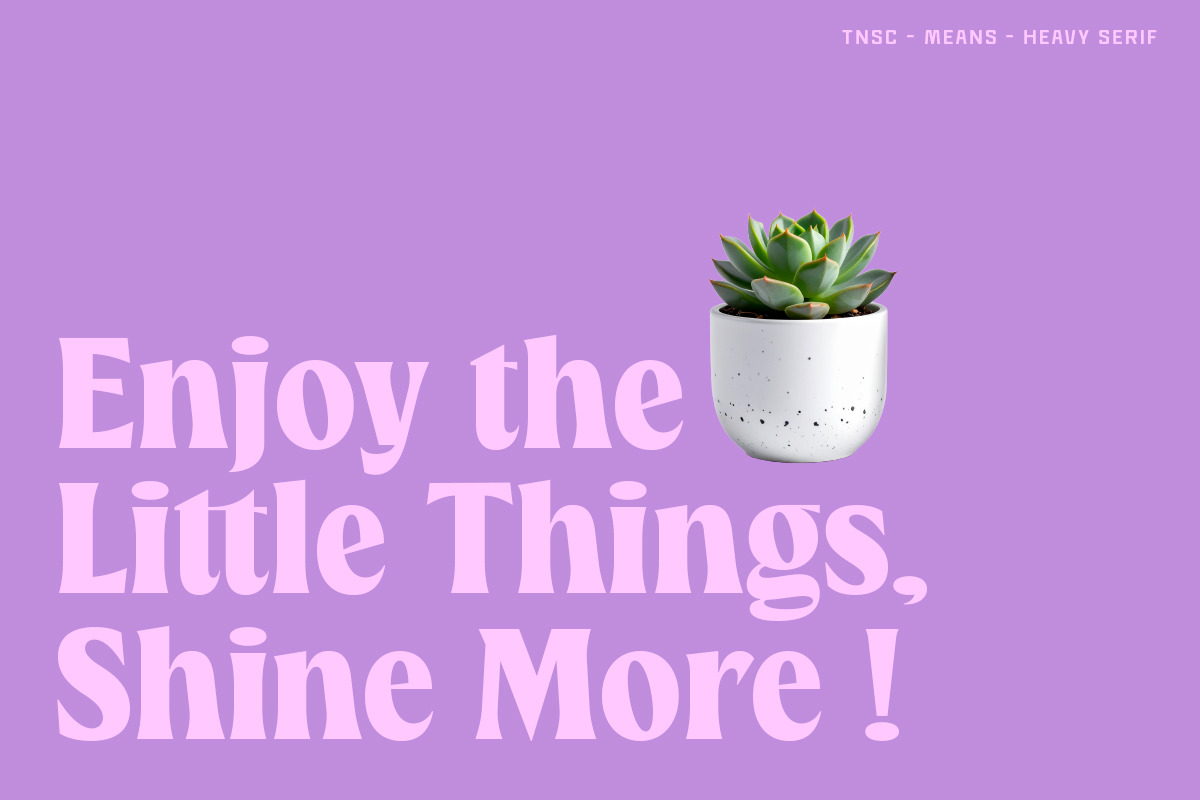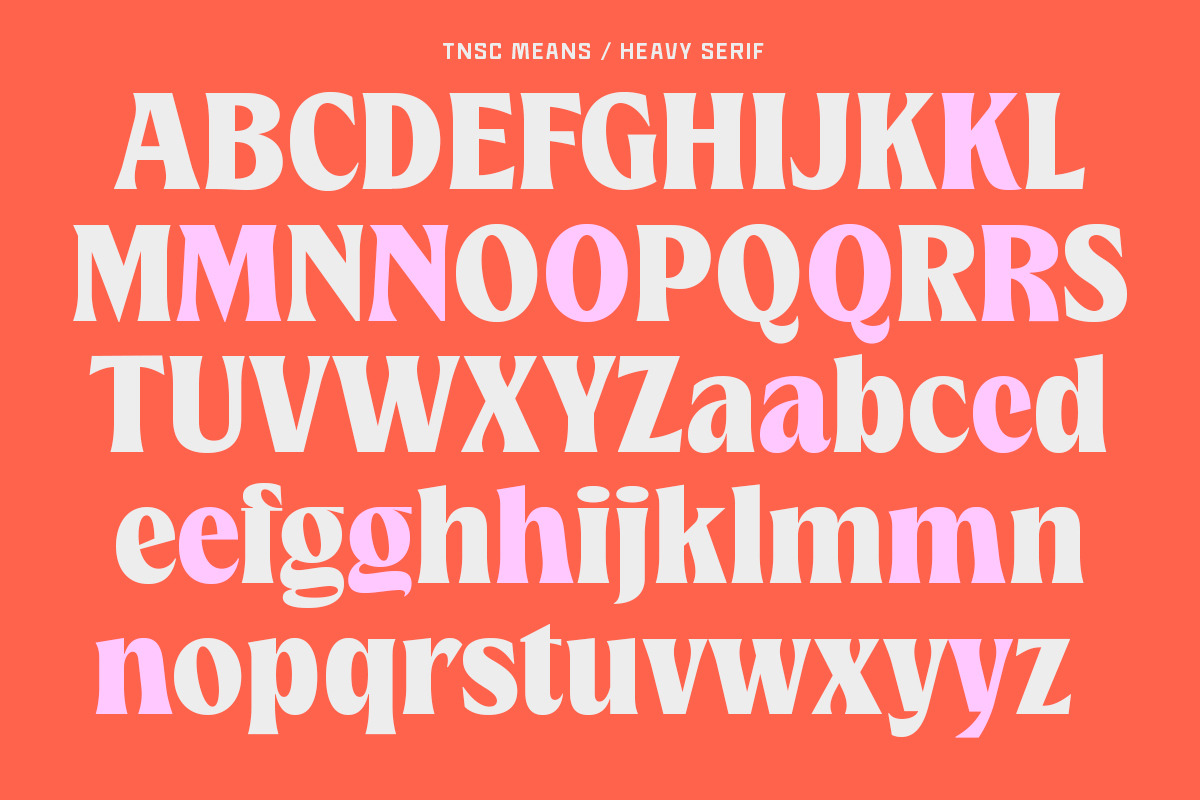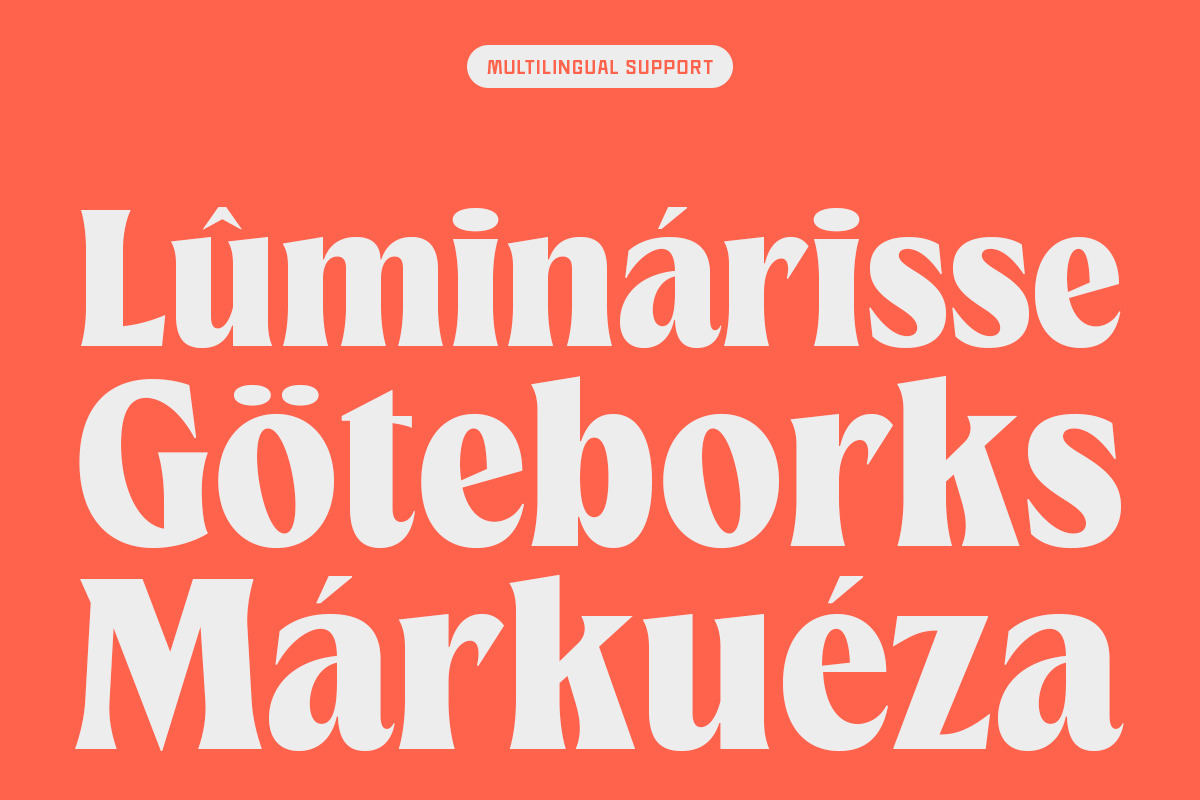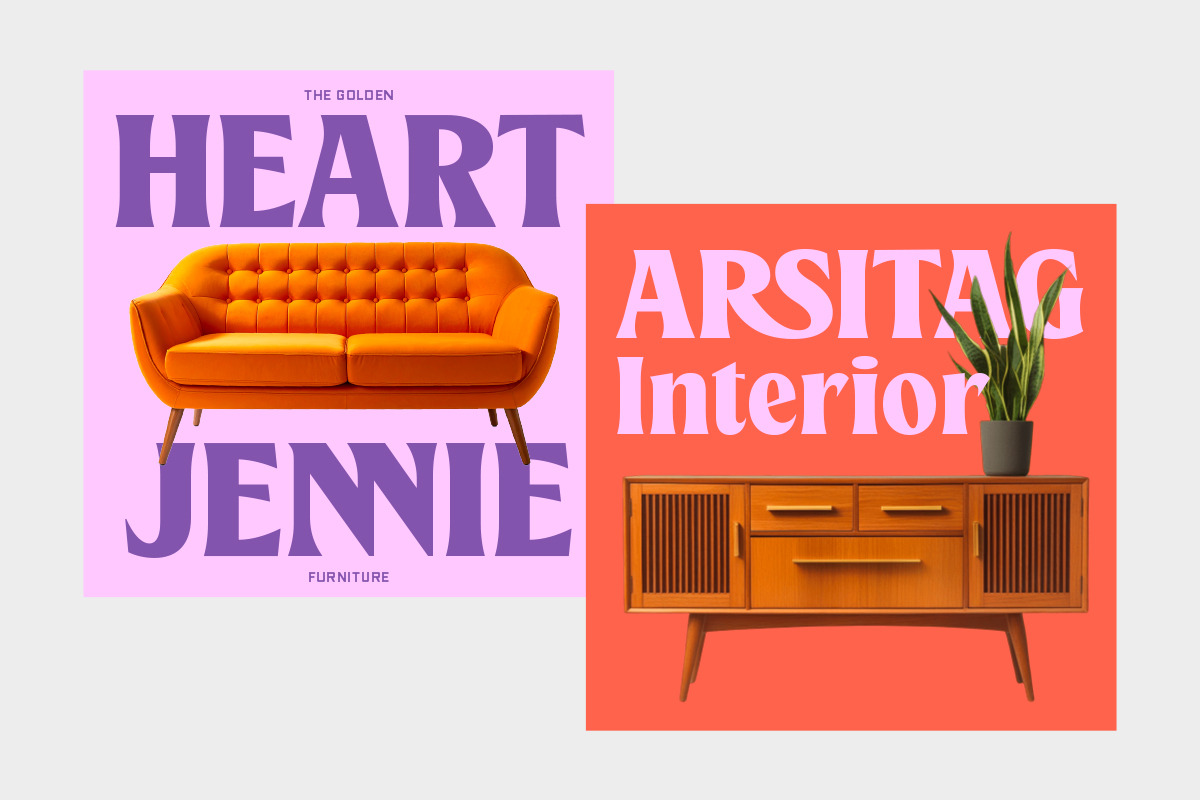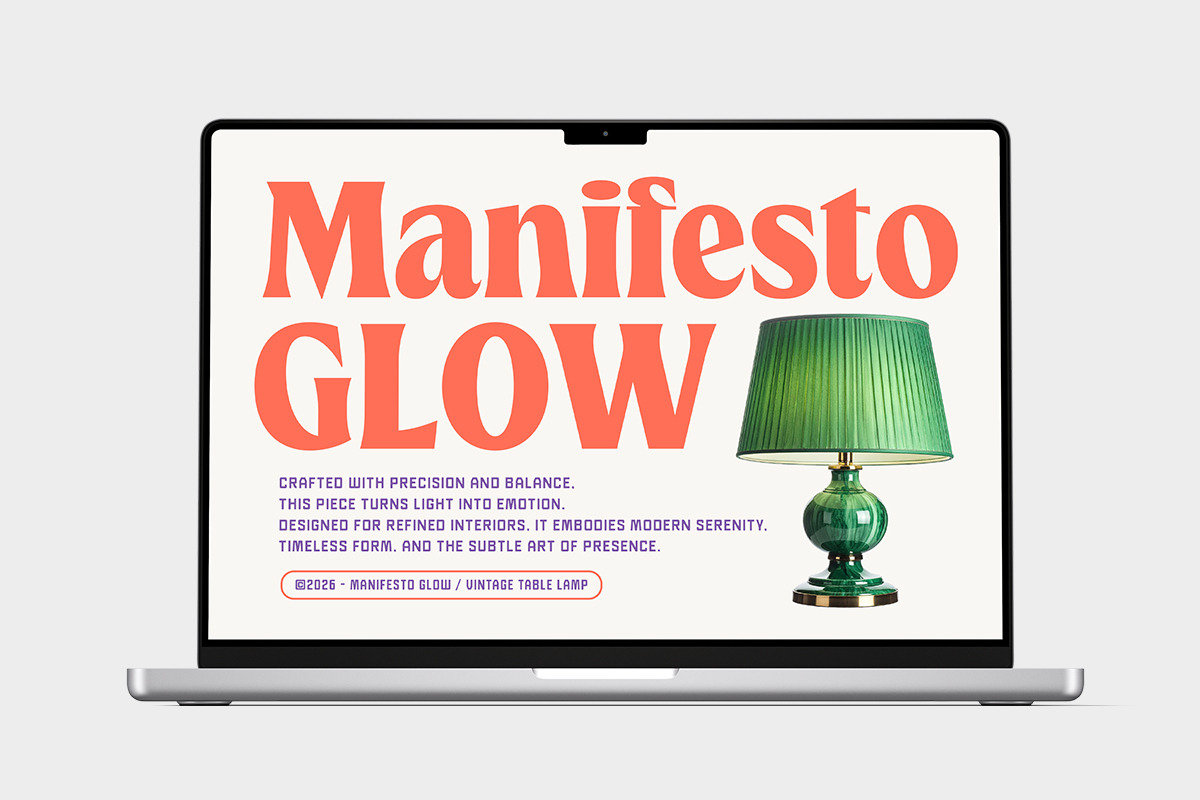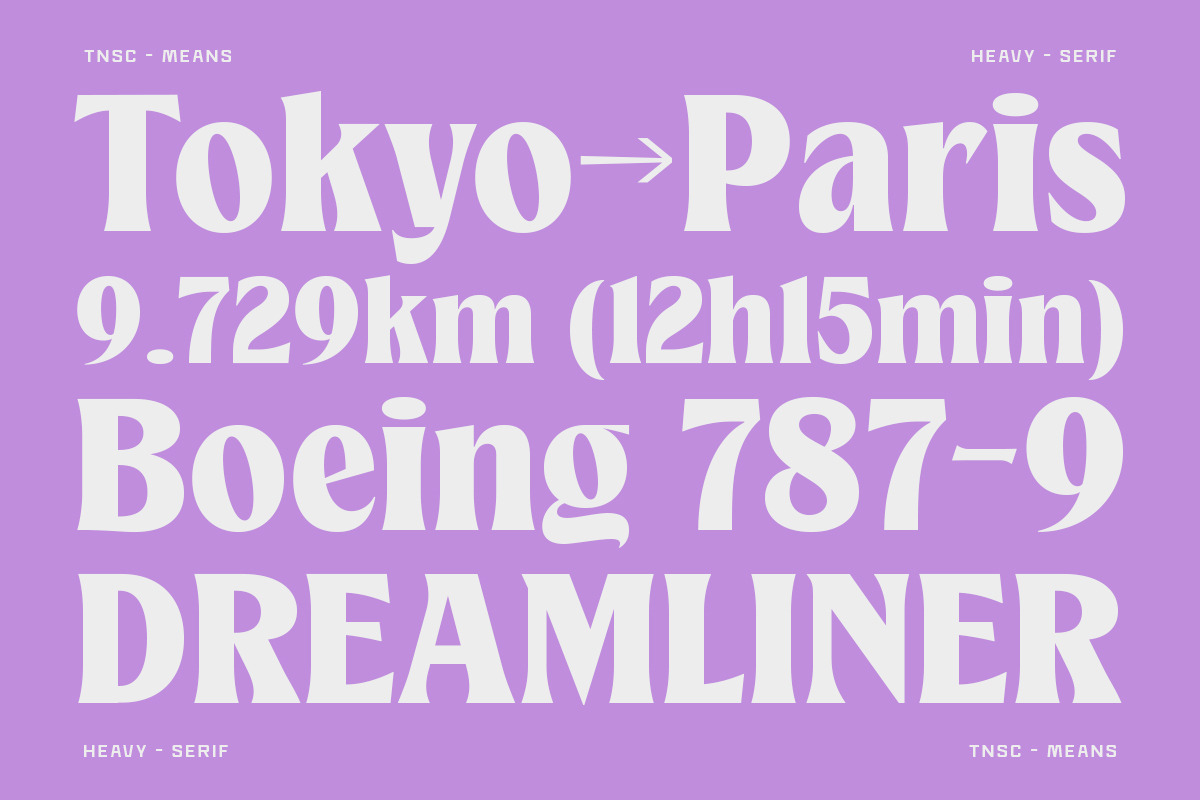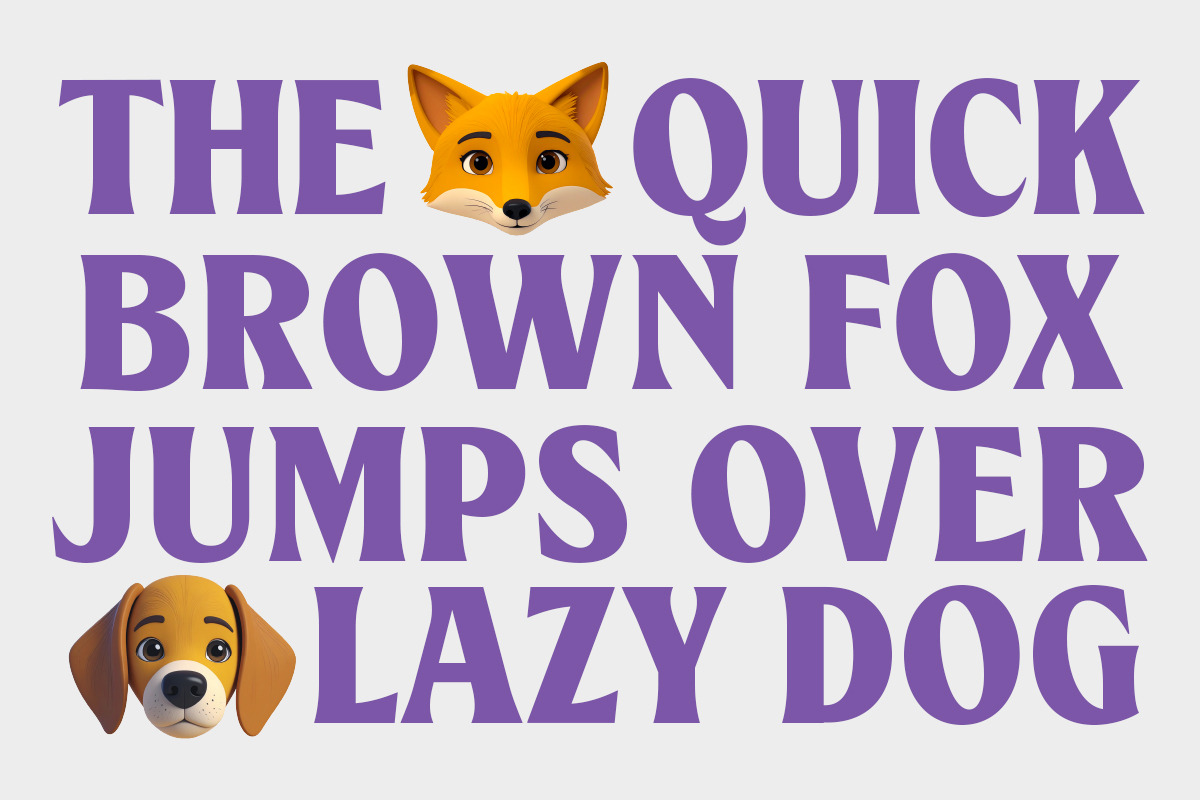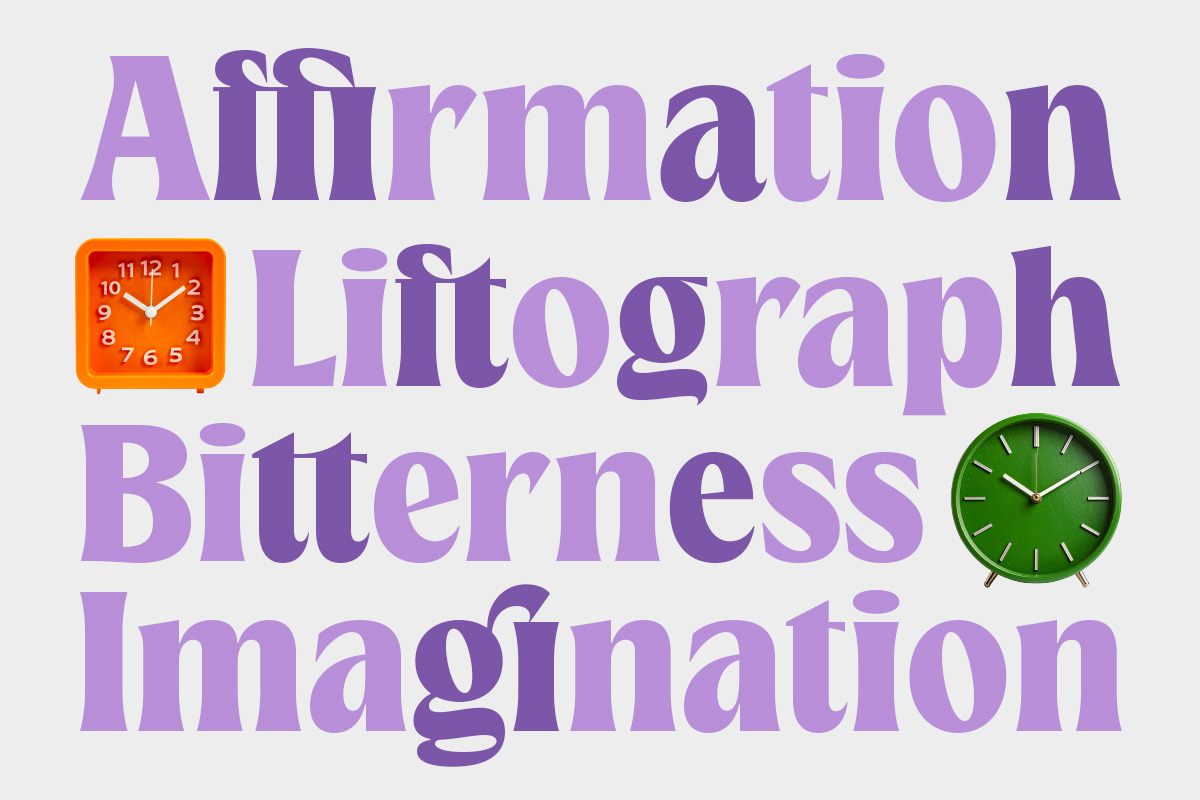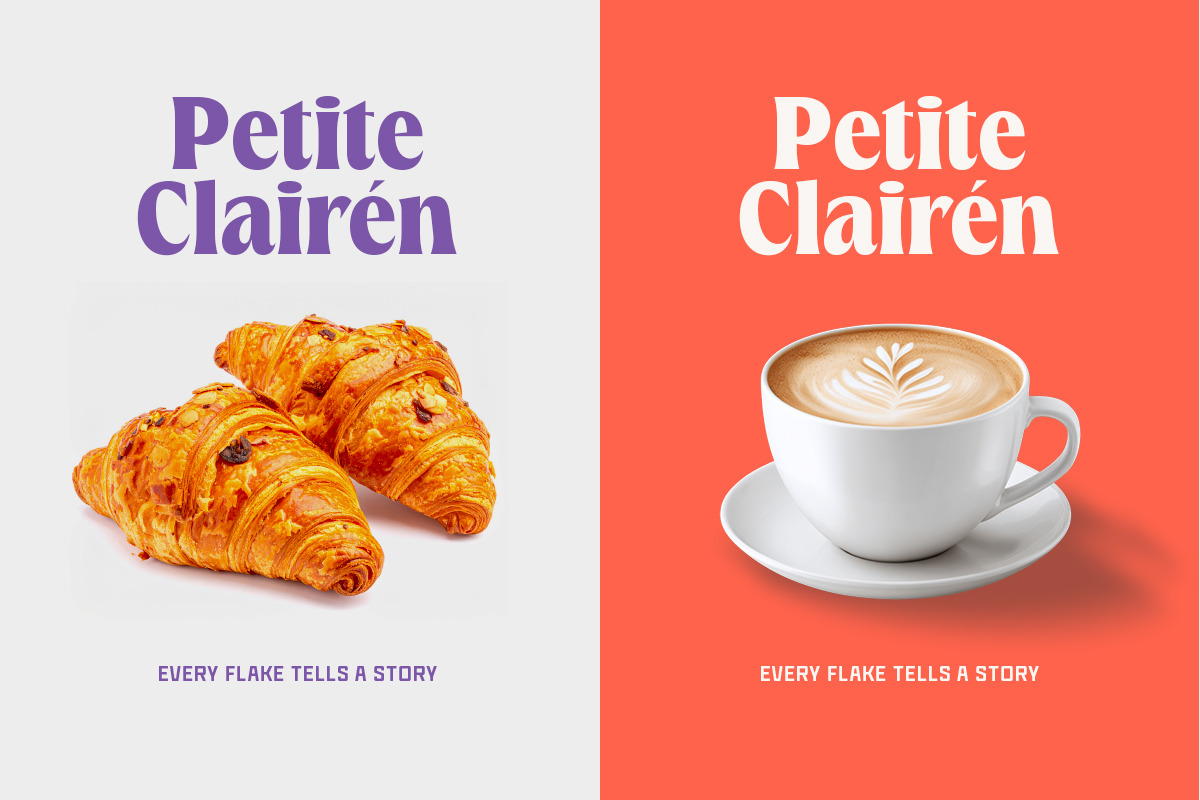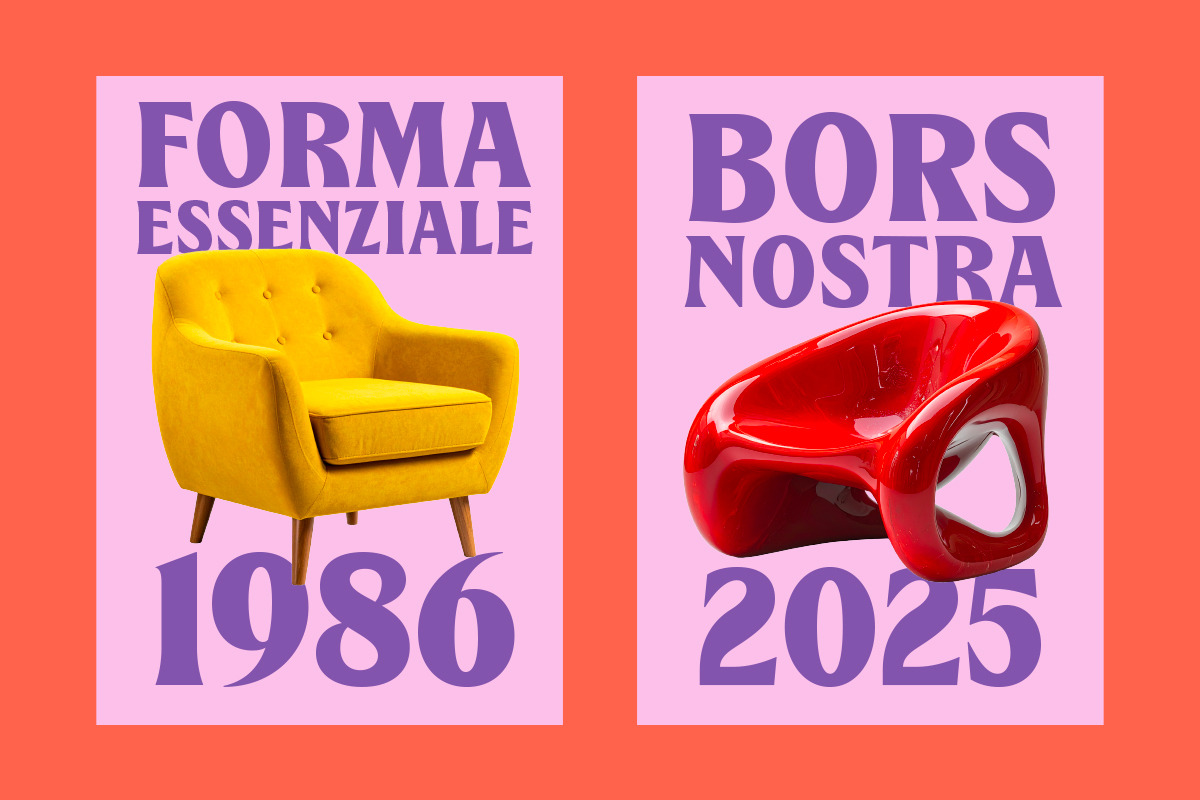
TNSC Means - Heavy Serif
TNSC Means is a clean and confident heavy serif display font made for bold titles and clear visual impact. It works great for branding, packaging, posters, and editorial designs that need strong and readable typography. Each letter is built with balanced shapes and consistent weight, giving your design a solid and professional look.